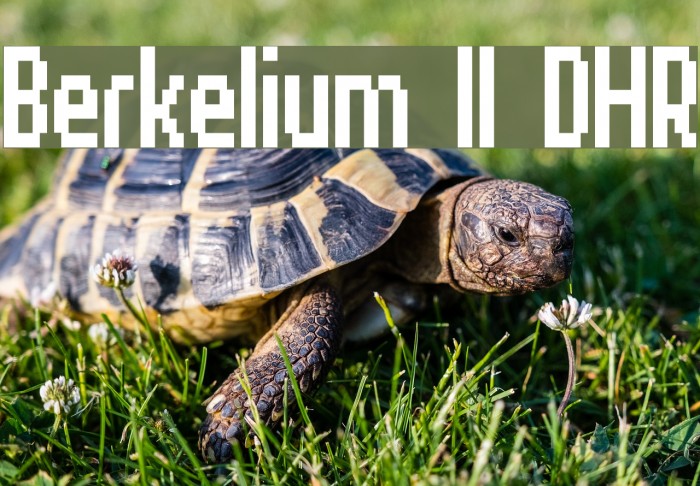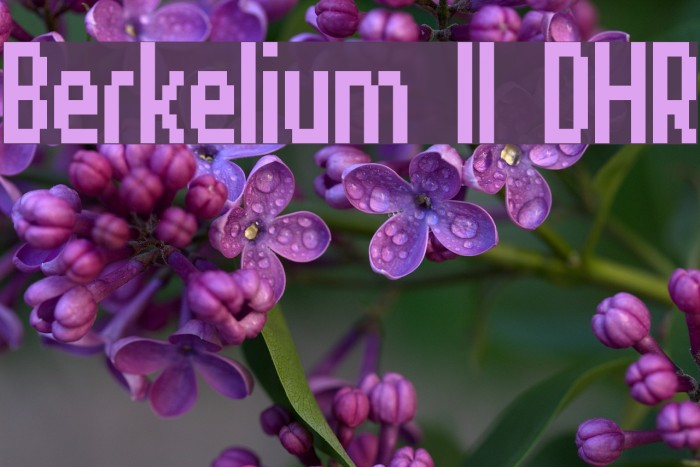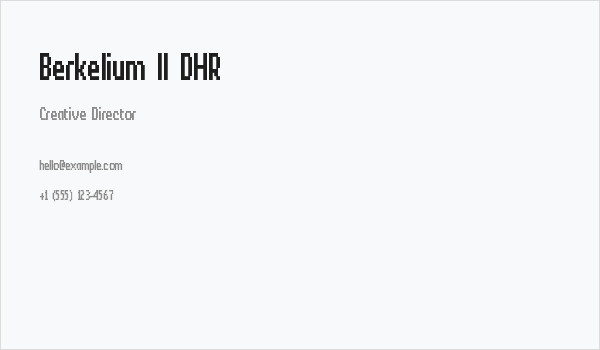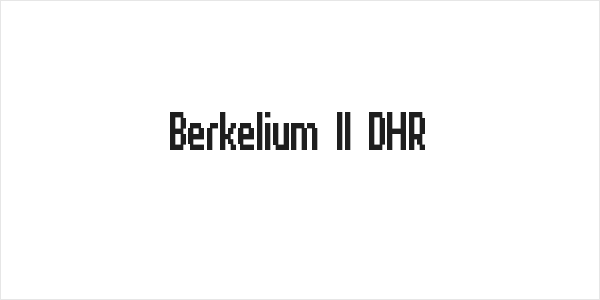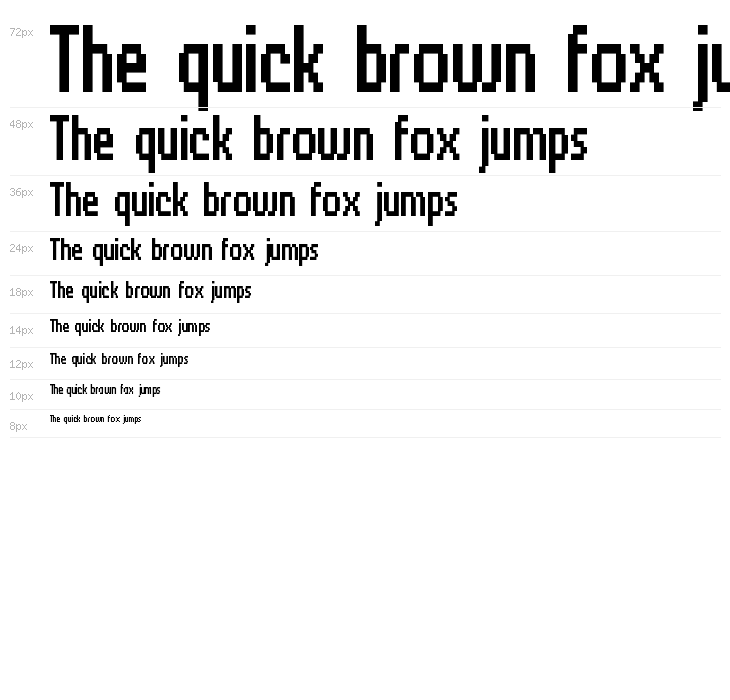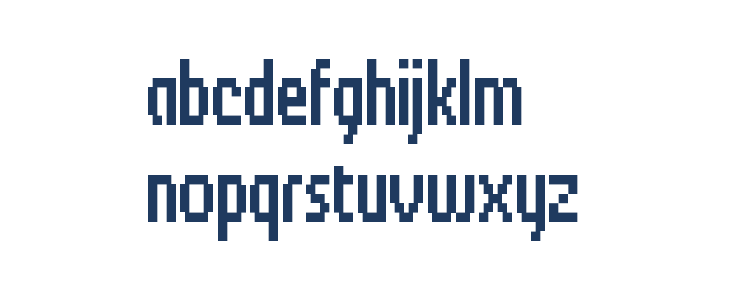
Berkelium II DHR Font
Berkelium II DHR Description
This font features a bold, pixelated style reminiscent of early digital displays and retro video games. The characters are blocky and uniform, with a consistent height and width that gives them a monospaced appearance. The uppercase and lowercase letters maintain a similar structure, enhancing readability while preserving the nostalgic aesthetic. Numbers and special characters follow the same design principles, ensuring a cohesive look across all glyphs. The font's simplicity and geometric form make it ideal for projects that aim to evoke a sense of nostalgia or a digital, tech-inspired theme.
| Overall Style | Retro, Digital |
| Use Case | Logos, Headlines, Digital displays |
| Proposed Projects | Ideal for retro video game designs, digital art projects, tech-themed posters, and nostalgic branding. |